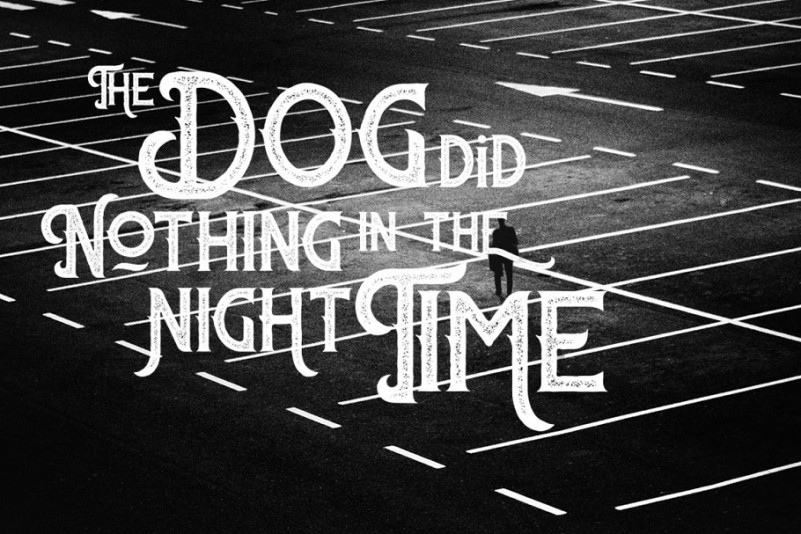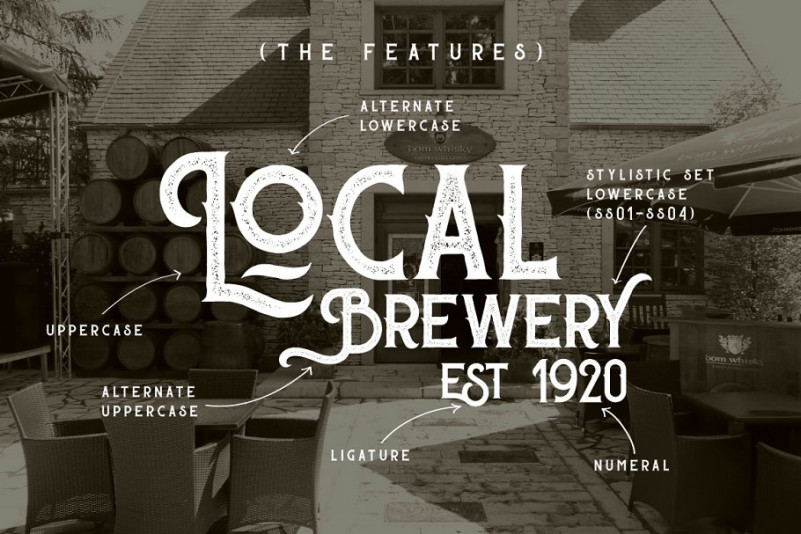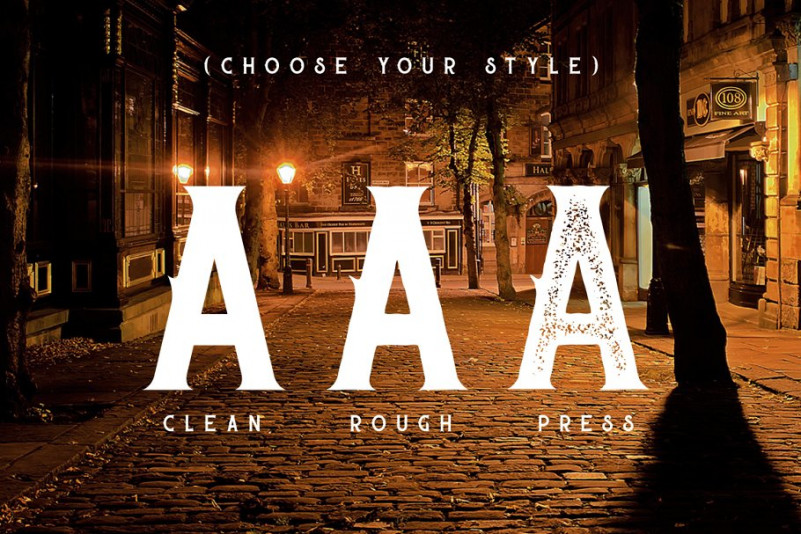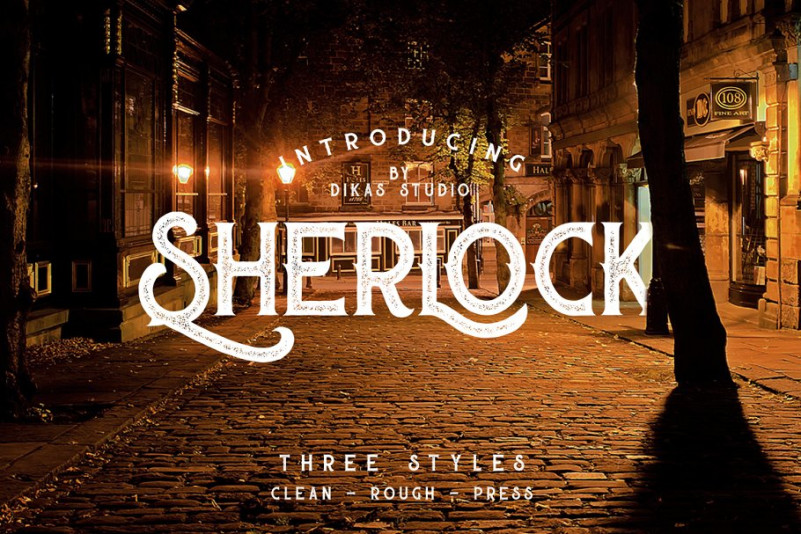
Sherlock Typeface
Thank you for checking Sherlock Font! This is a font display that is made by hand, inspired by classic posters. Perfectly fit for your vintage vibes and classic touch on any branding works. It is designed and shared by DikasStudio. Sherlock have 3 Style : Clean, Rough & Press, with handdrawn character and opentype feature its very helpfull to get Vintage design. Suitable and applicable to create vintage design, branding, logos, product packaging, invitation, qoutes, t-shirt, label poster etc.